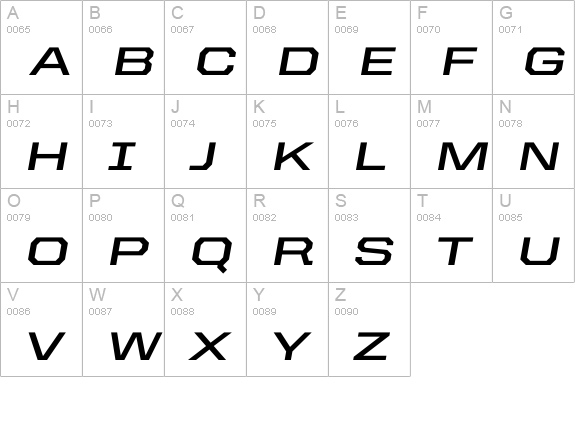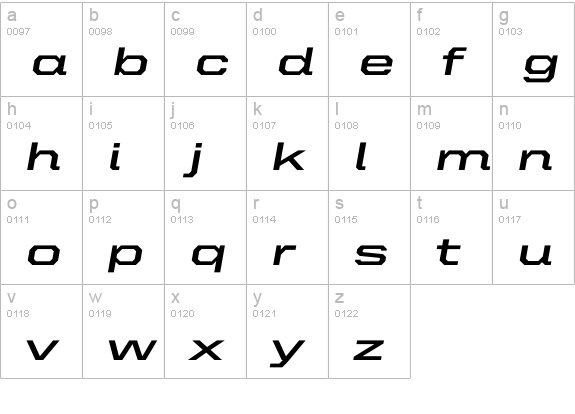
United Italic Ext Bold Font Details
United Italic Ext Bold is a strong, high-contrast, italic variant in the United typeface family \xE2\x80\x94 well suited to headlines, attention-grabbing titles, and strong calls-to-action.
United Italic Ext Bold is a striking and versatile font that combines elegance and modernity. With its bold and extended letterforms, this typeface commands attention and makes a bold statement. Its slanted italics add a touch of sophistication, making it perfect for a wide range of design projects. Whether you're creating eye-catching headlines, designing impactful logos, or crafting memorable brand identities, United Italic Ext Bold is the ideal choice. Its strong and confident presence on the page ensures that your message will be conveyed with maximum impact. The beauty of United Italic Ext Bold lies not only in its aesthetic appeal but also in its functionality. Its legibility is unparalleled, ensuring that your text will be easily read and understood by your audience. This makes it an excellent option for editorial design, such as magazines, newspapers, and books. One of the best aspects of United Italic Ext Bold is that it is available for free download at FontsMarket.com. This means that you can have access to this exceptional font without any cost. Whether you're a professional designer or a hobbyist, this font is freely available to enhance your creative projects. In conclusion, United Italic Ext Bold is a captivating font that combines boldness, elegance, and versatility. Its striking design and slanted italics make it perfect for a wide range of design projects. And the best part is that it is freely available to download at FontsMarket.com, allowing you to elevate your designs without breaking the bank.